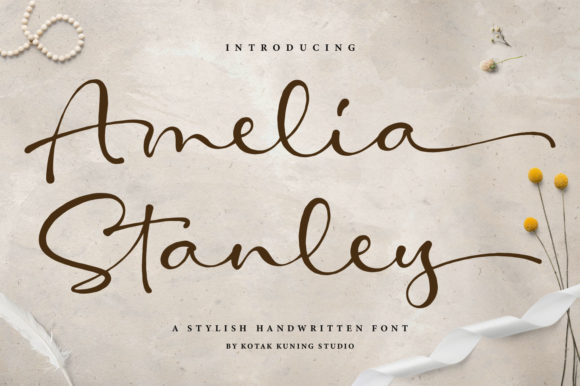
Amelia Stanley Font: Elevate Your Designs with Elegance and Sophistication
The world of typography is vast and diverse, offering a multitude of fonts that can make or break a design. Among these, the Amelia Stanley font stands out as a beacon of elegance and sophistication. This beautiful, handwritten font is designed to bring a touch of class and refinement to any project, making it an ideal choice for designers looking to create stunning visual content.
What is Amelia Stanley Font?
Amelia Stanley is an elegant and flowing handwritten font, crafted with precision and attention to detail. Its beautiful and well-balanced characters make it perfect for a wide range of design applications, including logos, stationery art, quotes, book covers, magazines, branding, and much more. The font’s unique charm lies in its ability to add a personal touch to any project, setting it apart from more generic and conventional typography options.
Key Features of Amelia Stanley Font
- Elegant and Flowing Design: The Amelia Stanley font boasts a smooth, flowing design that exudes elegance and sophistication.
- Well-Balanced Characters: Each character in the font is carefully crafted to ensure perfect balance and harmony, making it a joy to read and look at.
- Versatile: The font is suitable for a wide range of design applications, from logos and branding to book covers and magazines.
- Handwritten: The Amelia Stanley font has a personal, handwritten feel that adds a touch of warmth and personality to any project.
Uses of Amelia Stanley Font
The versatility of the Amelia Stanley font makes it an excellent choice for various design projects. Here are some of the ways you can use this beautiful font:
Design Applications
- Logos and Branding: Create a lasting impression with a logo that exudes elegance and sophistication.
- Stationery Art: Add a personal touch to your stationery with beautifully designed letters and quotes.
- Book Covers: Make your book stand out on the shelves with a captivating cover design.
- Magazines: Use the Amelia Stanley font to add a touch of class to your magazine’s typography.
- Quotes and Posters: Create stunning quotes and posters that are sure to grab attention.
Why Choose Amelia Stanley Font?
With so many fonts available, why should you choose Amelia Stanley for your design projects? Here are a few compelling reasons:
Benefits of Using Amelia Stanley Font
- Unique and Distinctive: The Amelia Stanley font is unlike any other font out there, offering a unique and distinctive look that sets it apart.
- Elegant and Sophisticated: The font’s elegant and sophisticated design makes it perfect for projects that require a touch of refinement.
- Easy to Read: The well-balanced characters and flowing design of the font make it easy to read, even in large blocks of text.
- Versatile: The font’s versatility makes it suitable for a wide range of design applications.
In conclusion, the Amelia Stanley font is a beautiful and elegant handwritten font that can elevate your designs to new heights. Its unique charm, versatility, and sophistication make it an excellent choice for a wide range of design applications. Whether you’re a professional designer or a DIY enthusiast, the Amelia Stanley font is sure to become a favorite in your typography arsenal.